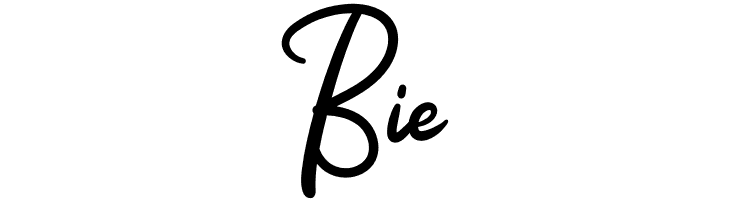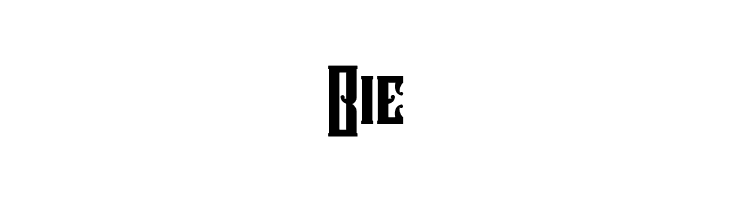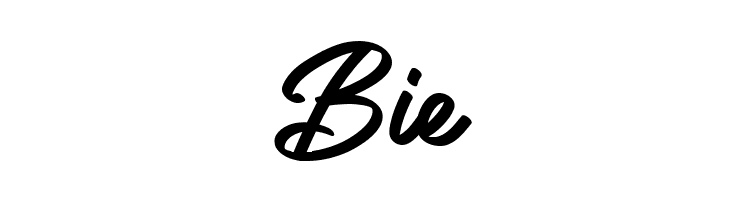
A dynamic script font with a slight slant and playful lowercase characters.
A playful, hand-drawn style font with rounded, flowing letterforms.
A modern, narrow font with consistent stroke width and a sleek, elegant design.
A bold, modern font with clean, geometric lines and slightly rounded characters.
A dynamic and elegant script font with fluid, connected letterforms.
A cursive, handwritten font with elegant loops and swashes.
A bold, angular font with a geometric and modern design.
A bold, decorative font with intricate, ornamental details.
A playful, whimsical font with flowing cursive lowercase and tall, narrow uppercase letters.
A flowing, cursive script font with elegant, sweeping strokes.